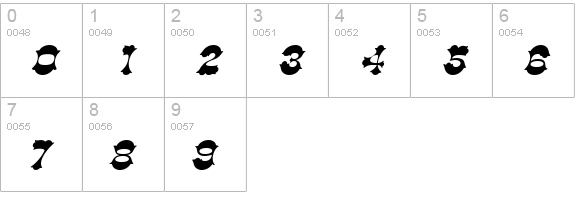
Dogwood Italic Font Details
Dogwood Italic is a distinctive, italic variant in the Dogwood typeface family \xE2\x80\x94 well suited to design and typography projects.
Dogwood Italic font is a graceful and elegant typeface that adds a touch of sophistication to any design project. With its delicate curves and slanted style, Dogwood Italic exudes a sense of refinement and charm. Perfect for adding a touch of flair to invitations, wedding stationery, or branding materials, this font is sure to make a lasting impression. What's even better is that Dogwood Italic is completely free to download at FontsMarket.com. This means you can easily access this stunning font without having to spend a dime. Whether you're a professional designer or just someone looking to add a little flair to your personal projects, Dogwood Italic is a fantastic choice that won't break the bank. Download it today and elevate your designs with this beautiful and versatile font.